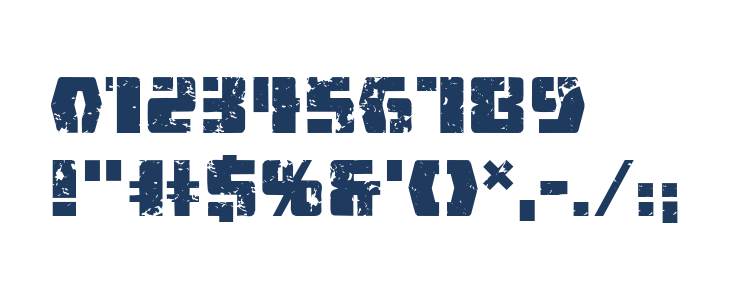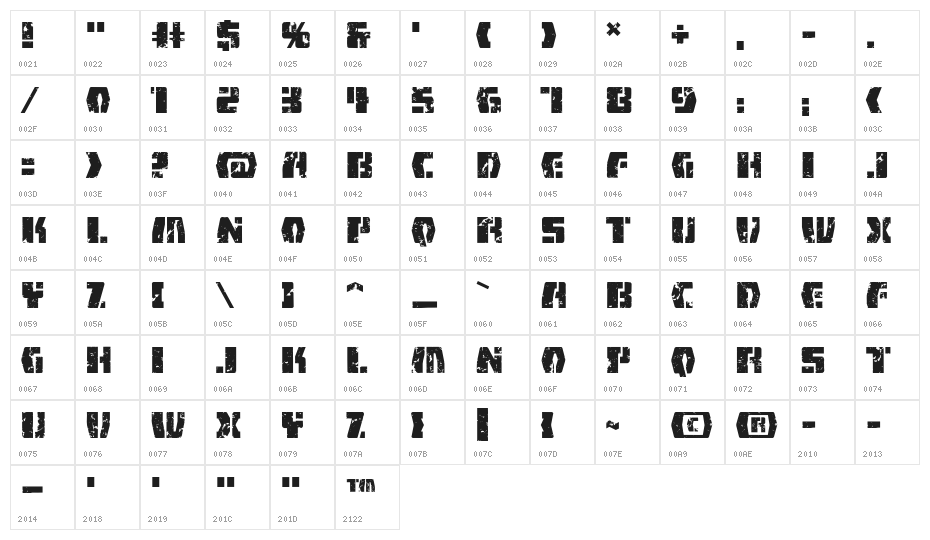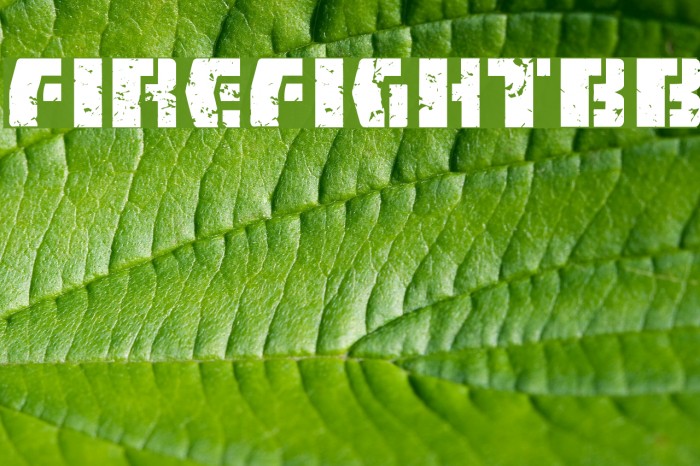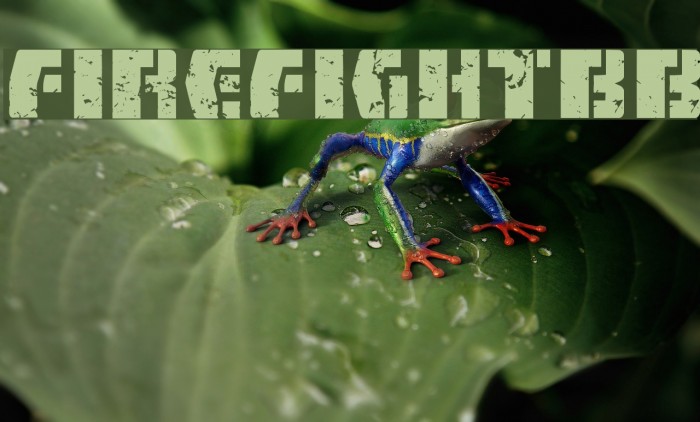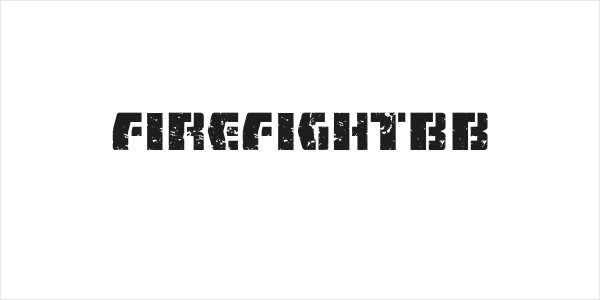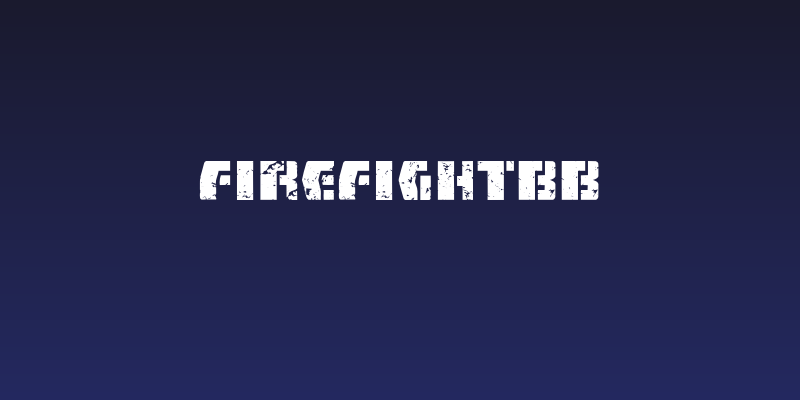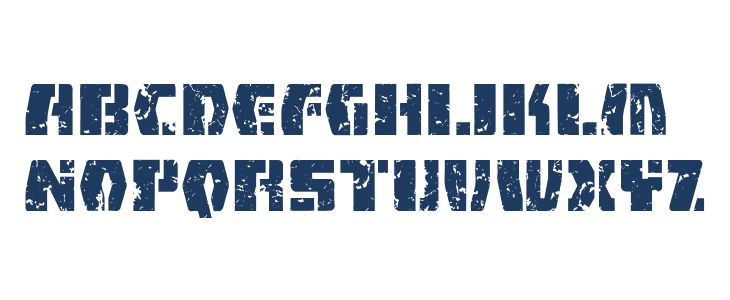
FireFightBB Font
FireFightBB Description
This font features a bold, distressed style with a rugged, weathered appearance. The characters are blocky and substantial, with a rough texture that gives the impression of erosion or decay. Each letter and number is uniquely distressed, adding to the overall gritty aesthetic. The font maintains a consistent weight throughout, ensuring readability despite its decorative nature. The uppercase and lowercase letters are similarly styled, with the uppercase being slightly larger and more pronounced. The numbers and special characters follow the same distressed theme, making them cohesive with the alphabetic characters.
| Proposed Projects | Ideal for projects requiring a gritty, industrial look, such as posters, album covers, or video game graphics. |